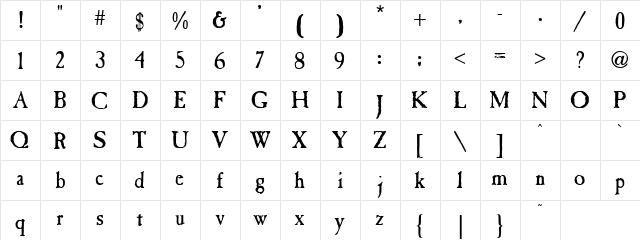
JADE Regular
Design Context for JADE Typeface
JADE offers clean, dependable letterforms without strong stylistic allegiance, making it a practical choice for designers who need flexibility.